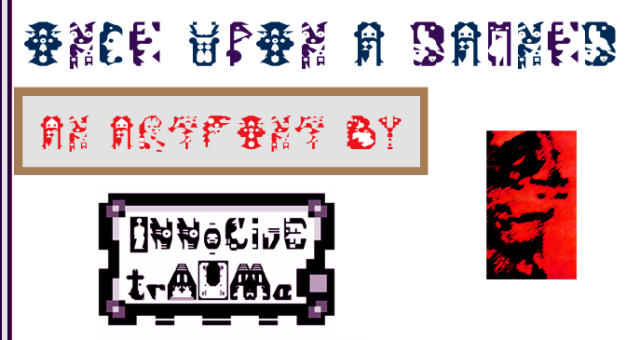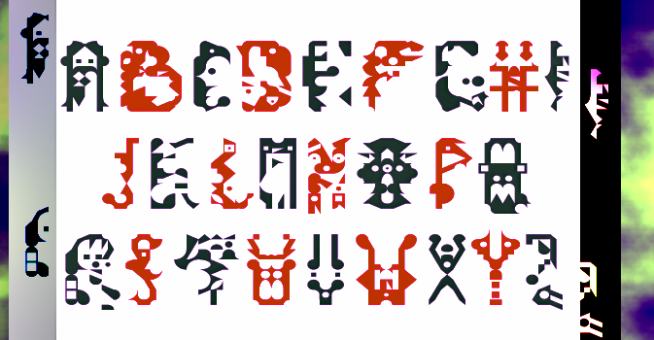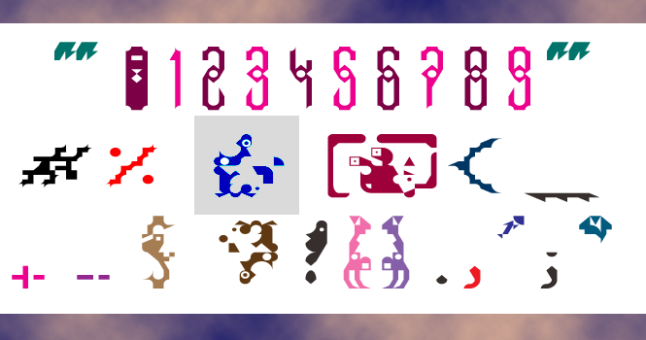
trAUMa 74 / Once Upon A Damned
"Once Upon A Damned", like all the "trAUMa" series, works at the frontier between Art & Type Design, Figuration & Abstraction, each font is a comprehensive world in which every glyph is a "living" entity. But put together they can produce your messages in the most accurate way.